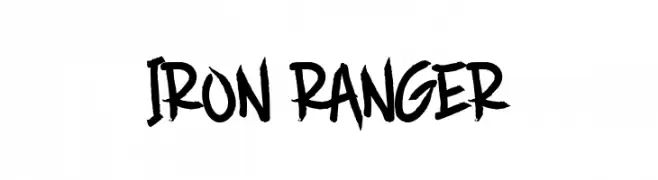
A high-contrast, modern-vintage font with bold uppercase and elegant lowercase letters.
A bold, angular, and condensed font ideal for impactful headlines.
A bold, angular font with a modern, industrial aesthetic.
A bold, angular italic font with a futuristic, industrial aesthetic.
A bold, italicized font with sharp, angular design and dynamic slant.
A futuristic, circuit-inspired font with bold geometric shapes and intricate line work.
A bold, oblique, and condensed font with a modern, industrial style.
A futuristic, geometric font with a bold, interconnected design and three-dimensional effect.
A futuristic, dotted font with a digital, segmented design.
A bold, outlined serif font with a modern twist, perfect for eye-catching headlines.
A bold, medieval-inspired font with sharp, angular lines and decorative elements.
A medieval-inspired font with sharp serifs and unique letterforms, ideal for fantasy themes.
A bold, gothic-style font with a shaded, three-dimensional effect.
A bold, oblique font with a shaded, three-dimensional Gothic style.
A bold, extended, and oblique font with a modern and dynamic style.
A bold, Gothic-inspired font with tall, narrow characters and strong vertical emphasis.
A bold, oblique, and condensed font with a modern, gothic-inspired style.
A rugged, distressed font with a vintage industrial feel.
A bold, geometric font with sharp angles and a futuristic style.
A bold, geometric font with a futuristic and industrial design.
A bold, geometric, and futuristic font with condensed and italicized characters.
A bold, italicized font with a futuristic, angular design and decorative elements.
A bold, geometric font with a futuristic and angular design.
A bold, futuristic font with sharp angles and geometric shapes, featuring an italic style.